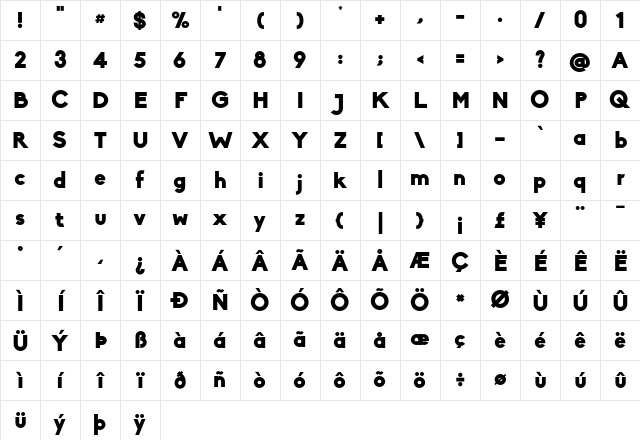
Biko Black
Foundry: Marco Ugolini
Designer: Marco Ugolini
Design Context for Biko
Biko is a composed and adaptable typeface that performs quietly and consistently across a wide range of design contexts.